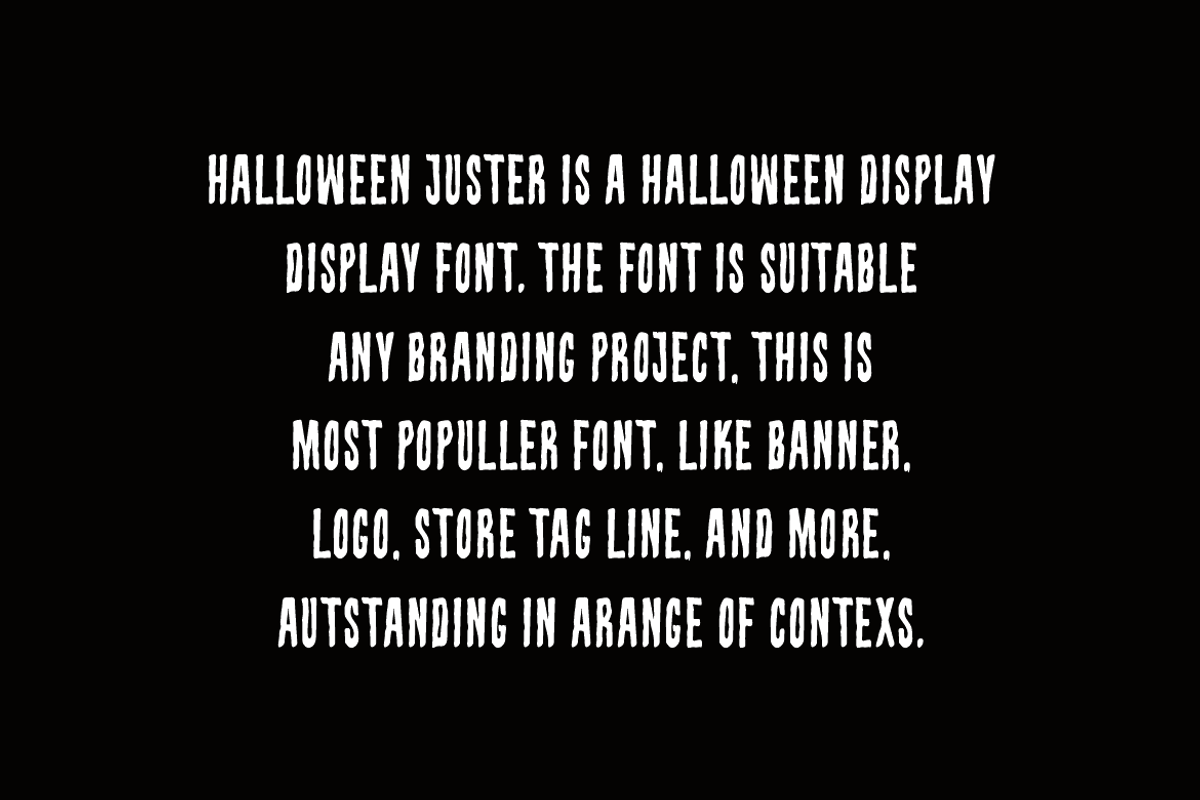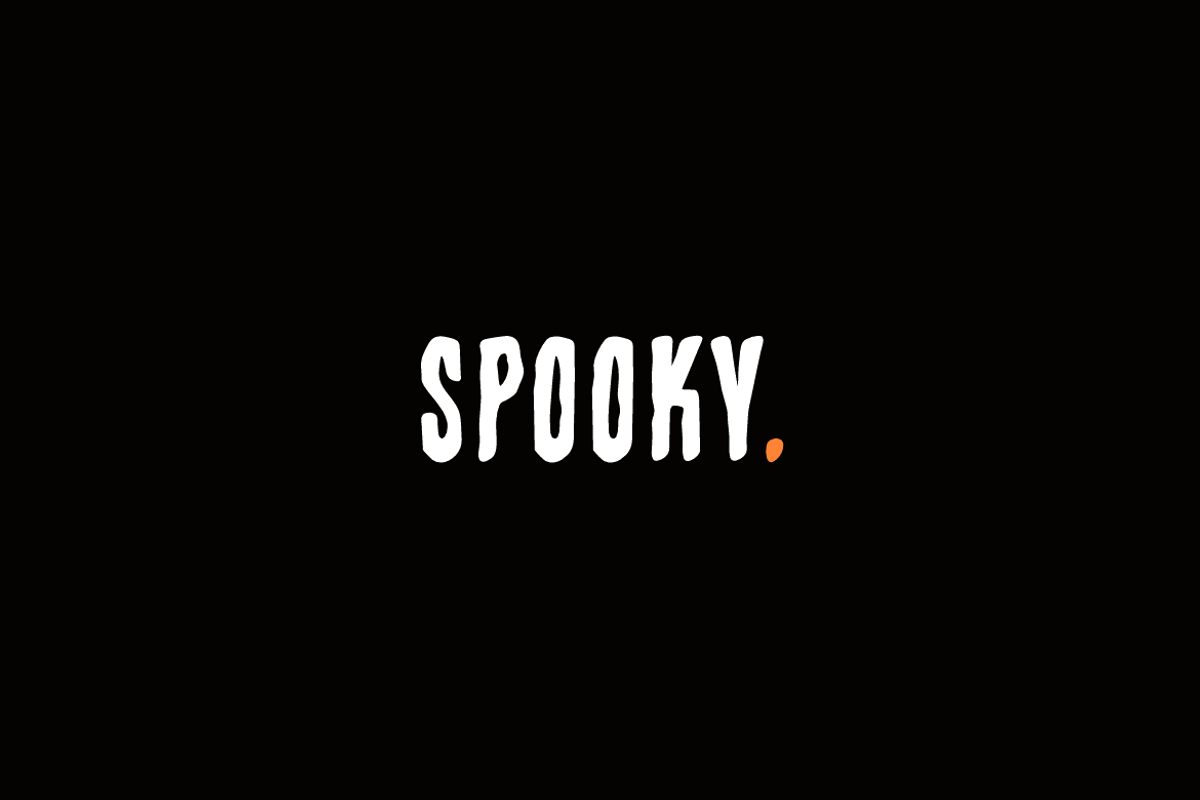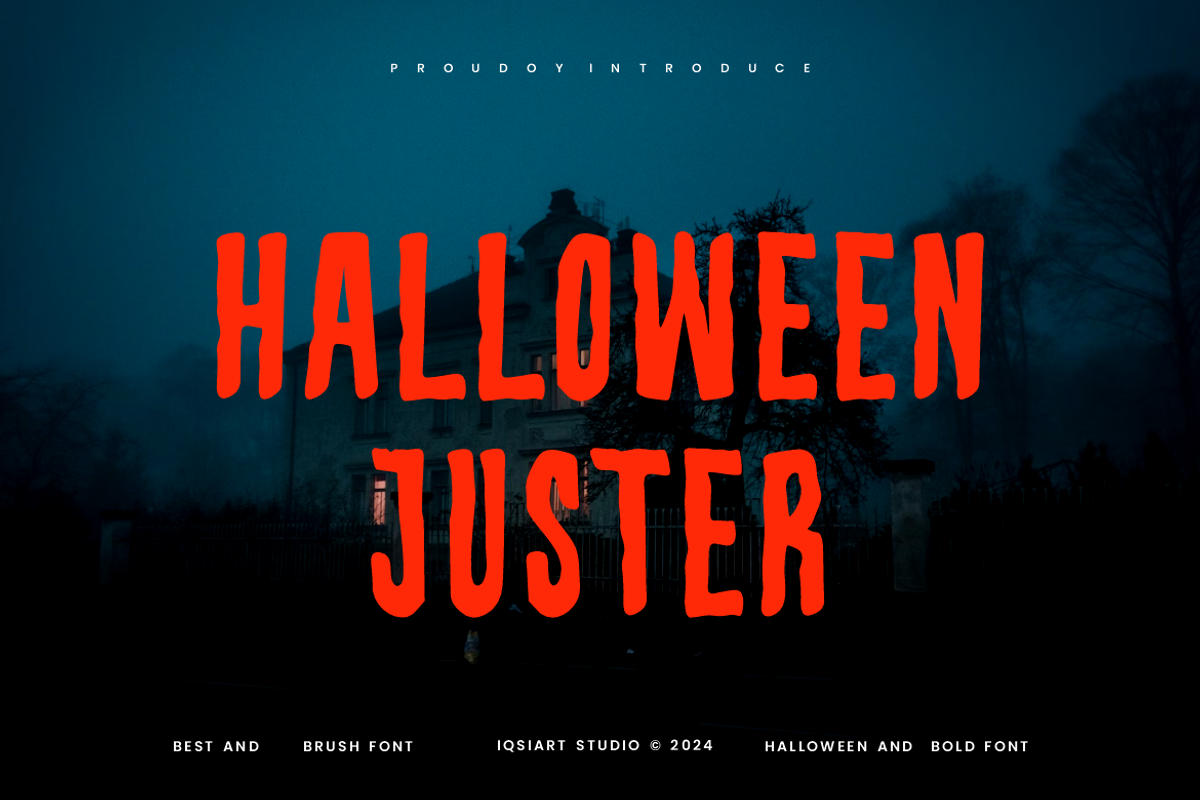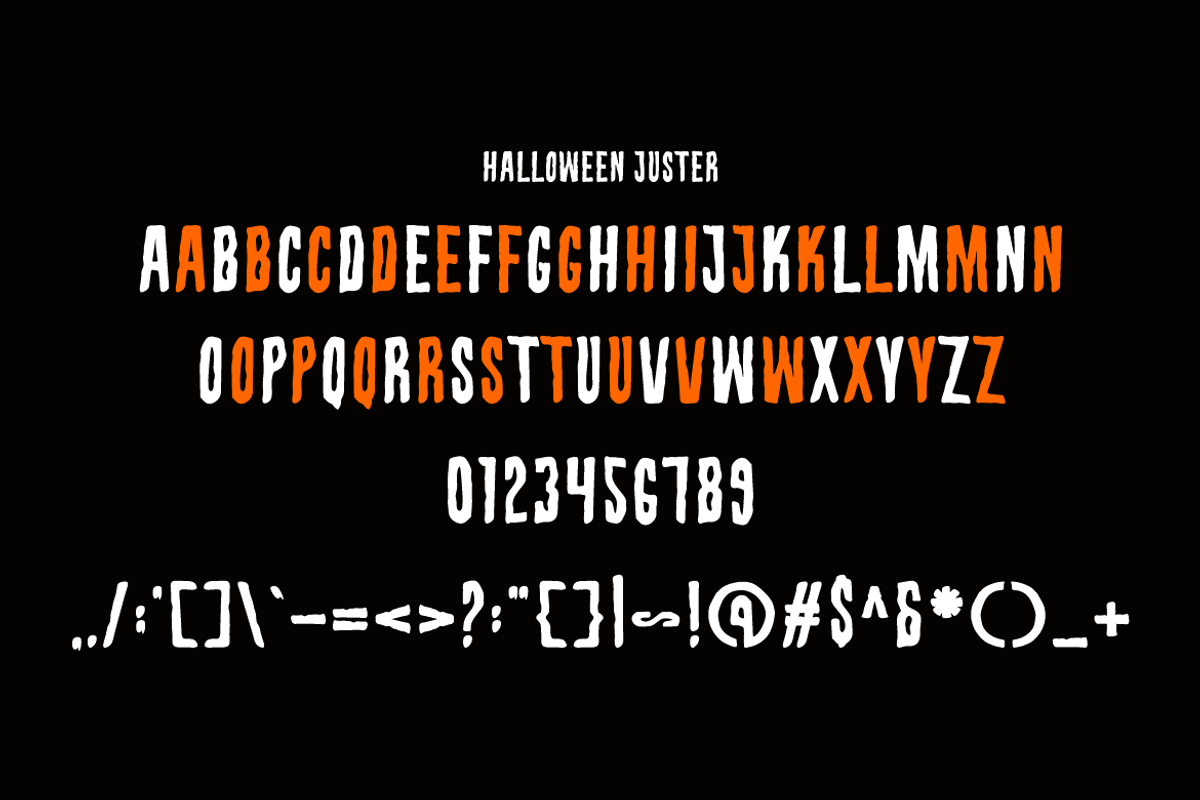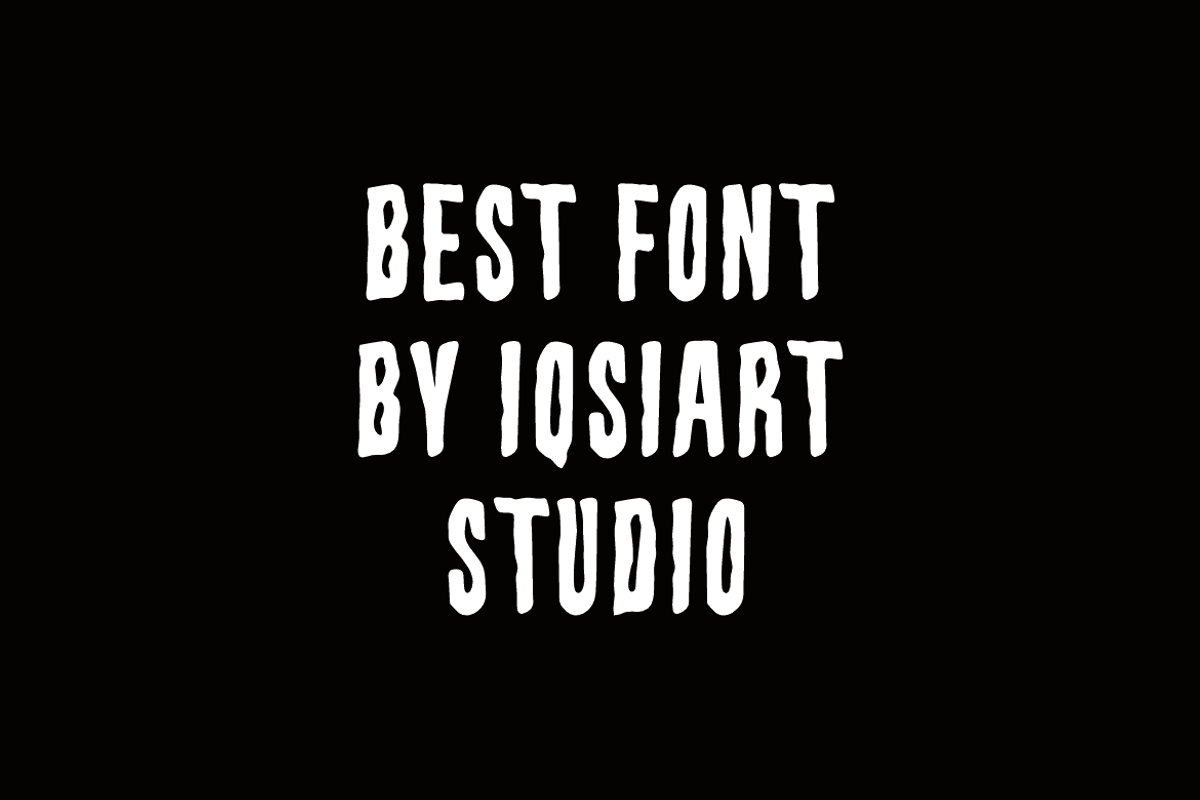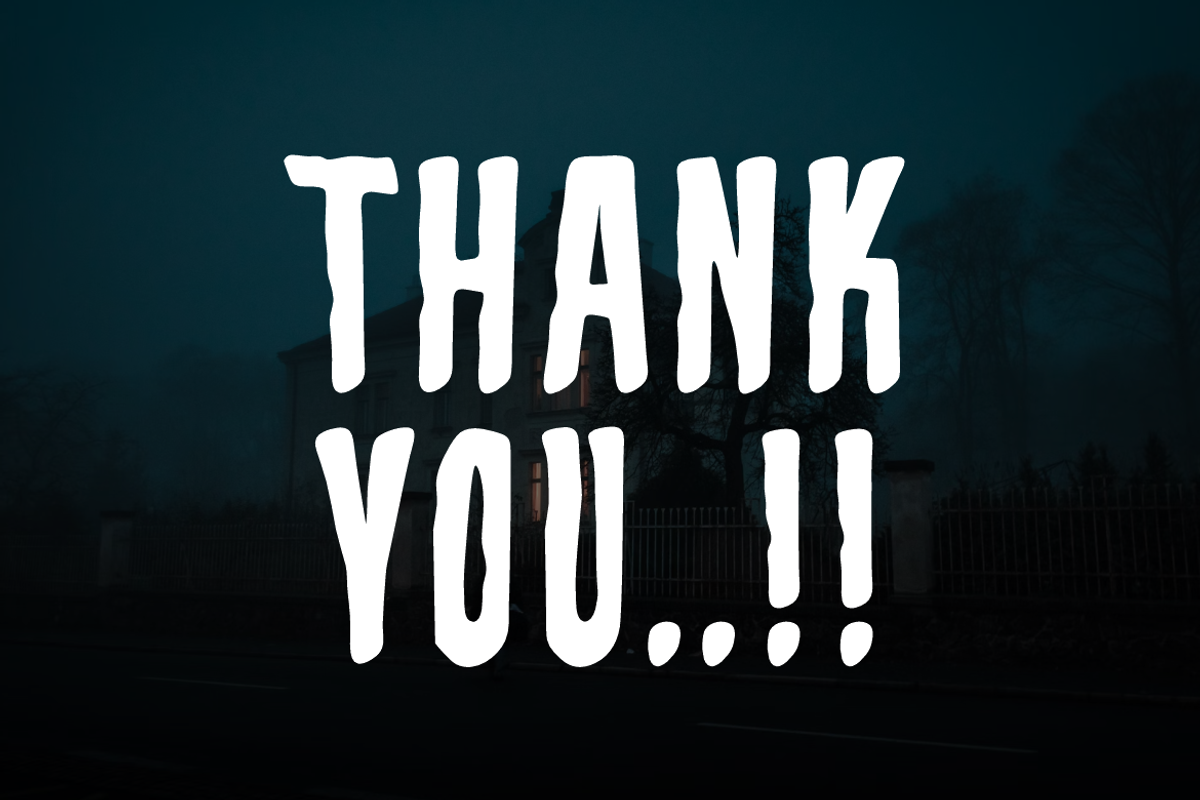
Halloween Juster - Scary Font
Halloween Juster Font is a best and authentic display font. This font can be used for your various needs. We provide various themes and font styles. visit our profile to get a wide variety of themes and different font styles you need.